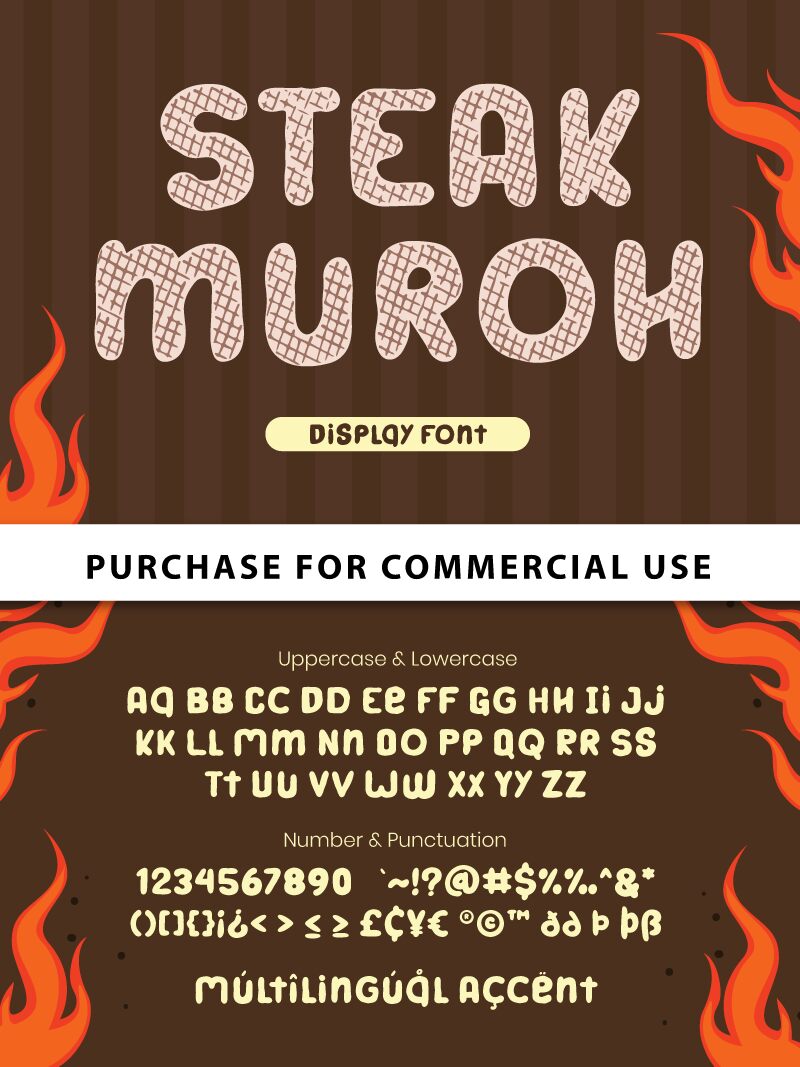
Steak Muroh, crafted by Attype Studio, is a captivating display font with a bold weight that adds an animated touch to any project.
Its playful and cartoon-like style makes it perfect for children's books, greeting cards, and animated movie titles. The unique design of Steak Muroh is also well-suited for logo designs, comic books, and video game graphics, injecting a lively and fun atmosphere into your creations.
Bring your imagination to life with this versatile font that exudes creativity and charm.